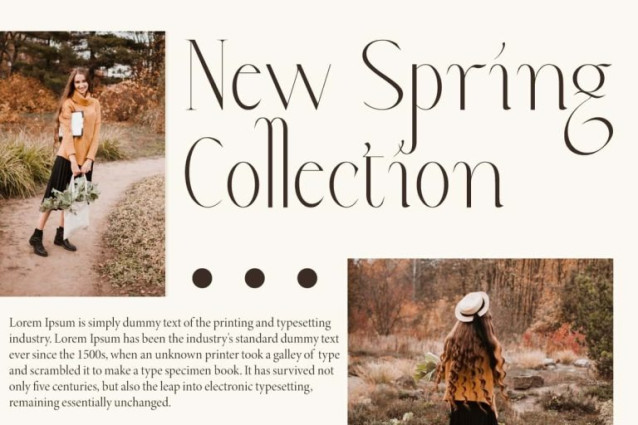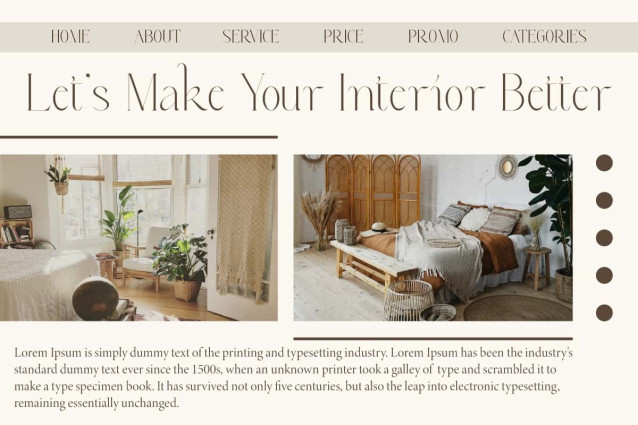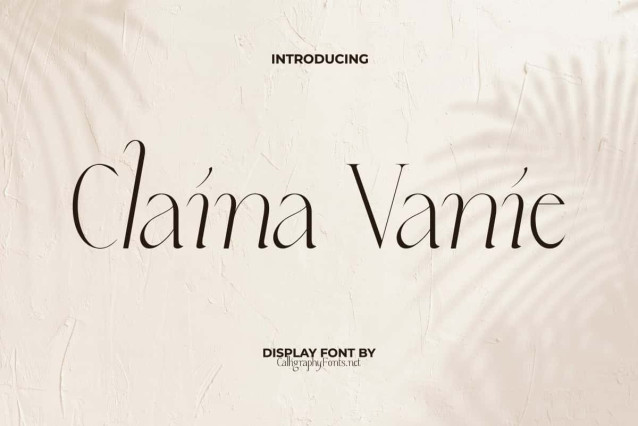
Claina Vanie Font
Claina Vanie Font is an elegant serif display font with alternates that come in an italic aesthetic. It has a visually appealing character, will be versatile in both formal and informal formats. Carefully crafted to make it a clean, neat, balanced and stylish serif font. Perfect for apps, banners, blogs, brand logo, brochure, covers, greeting cards, headers, invitation, mockup, packaging, quotes, stationery, sticker, template, title, website, and more.
Claina Vanie Font is a modern style serif display that exudes sophistication and cohesion. This typeface can beautify and easily customize as a perfect partner for any project. Perfect for apparel, authors, beauty product, boutique, corporate business, digital marketing, event organizer, fashion, graphic design, home furnishing, interior design, photography, publisher, real estate, restaurant, spa salon, travel agency, and much more.
Claina Vanie Font comes with a complete set of Uppercase and Lowercase Basic Characters, Numbers, Punctuation, Symbol, and Alternate. It is supported with multilingual characters and ready to use both on Windows machine or Mac with simple installations. It’s tested to work well in the Adobe Apps (Illustrator, Adobe InDesign, Adobe Photoshop) CorelDraw, and others. PUA Encode Characters means you can access all the characters easily – Fully accessible without additional design software.